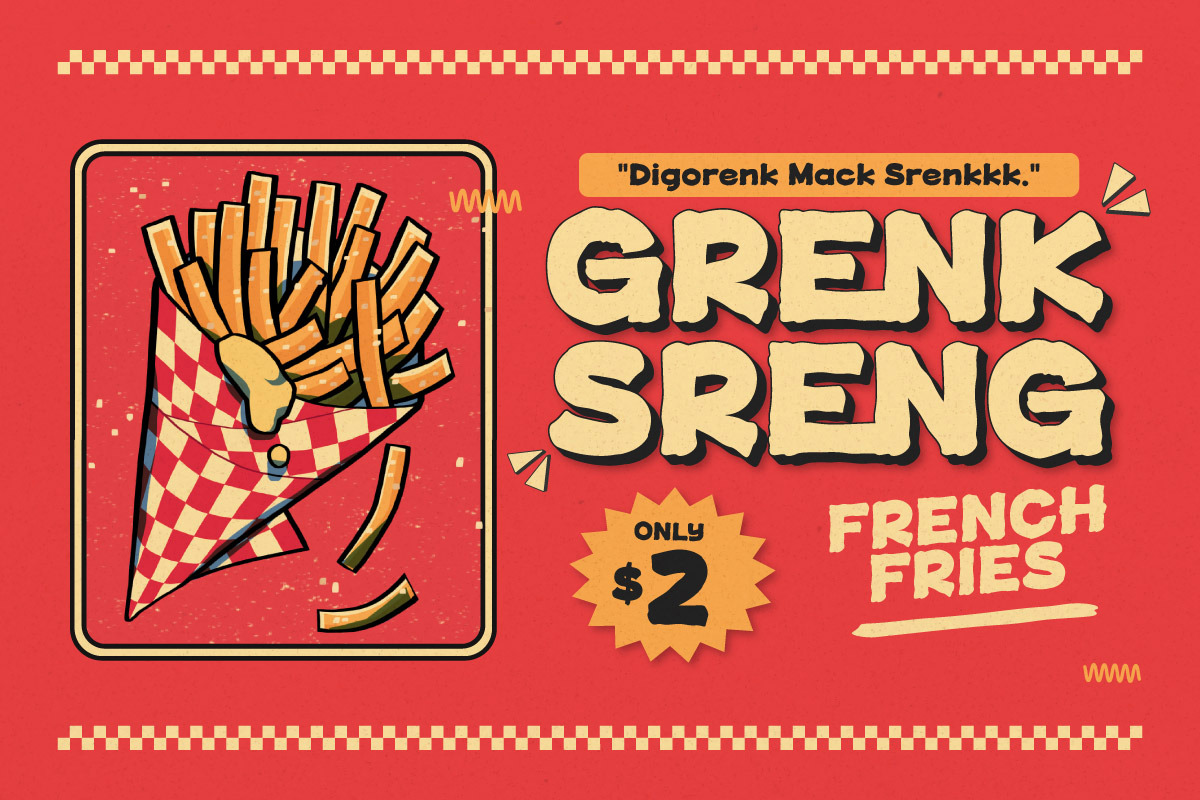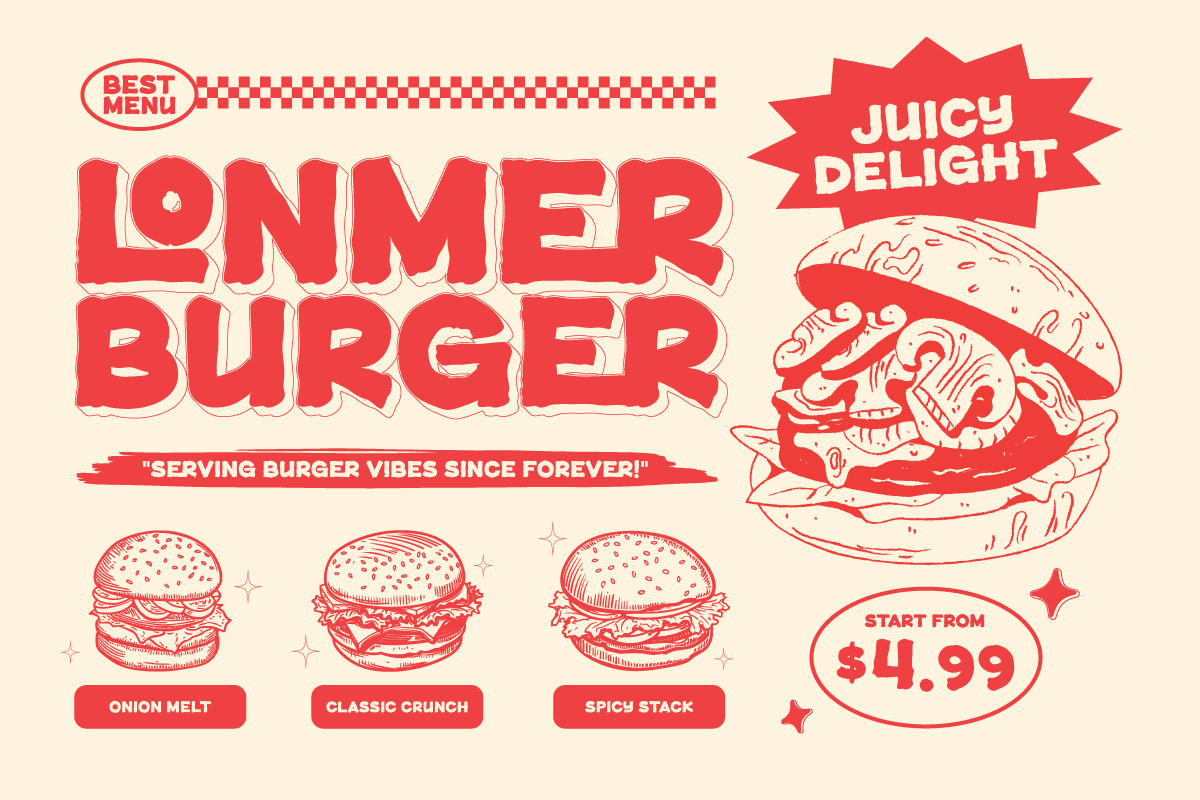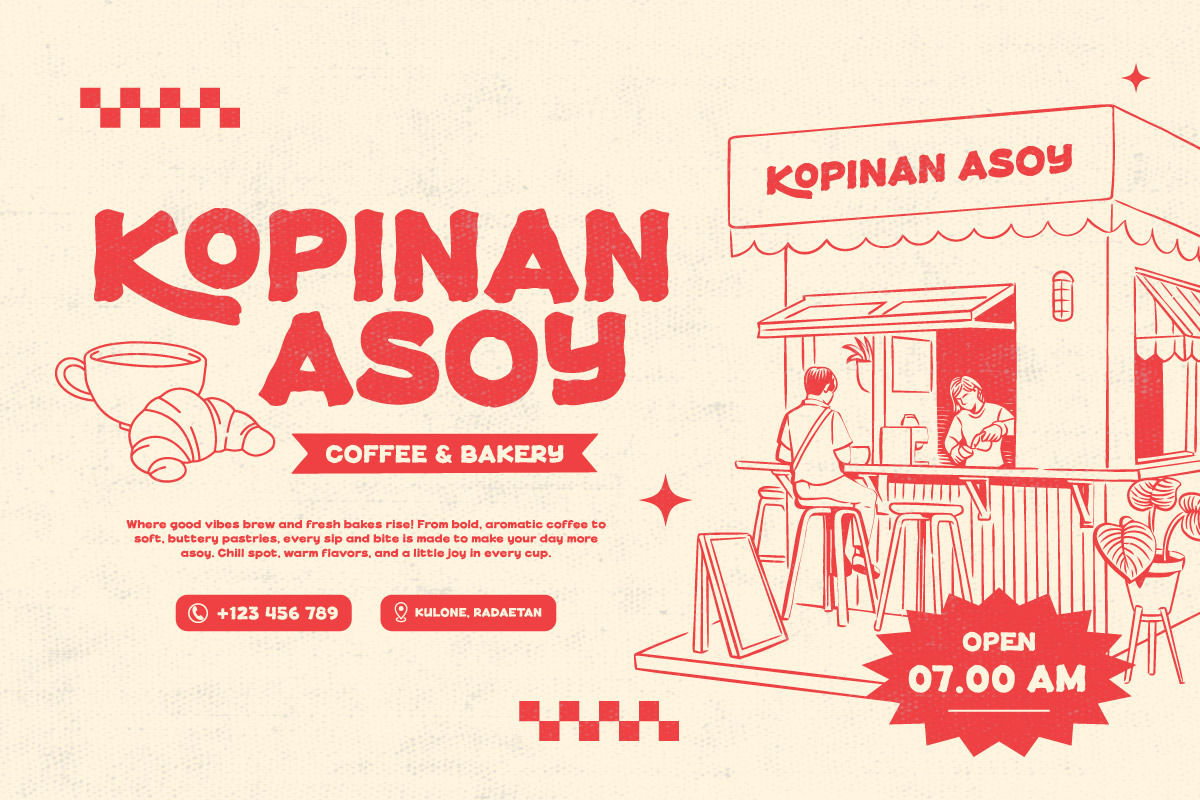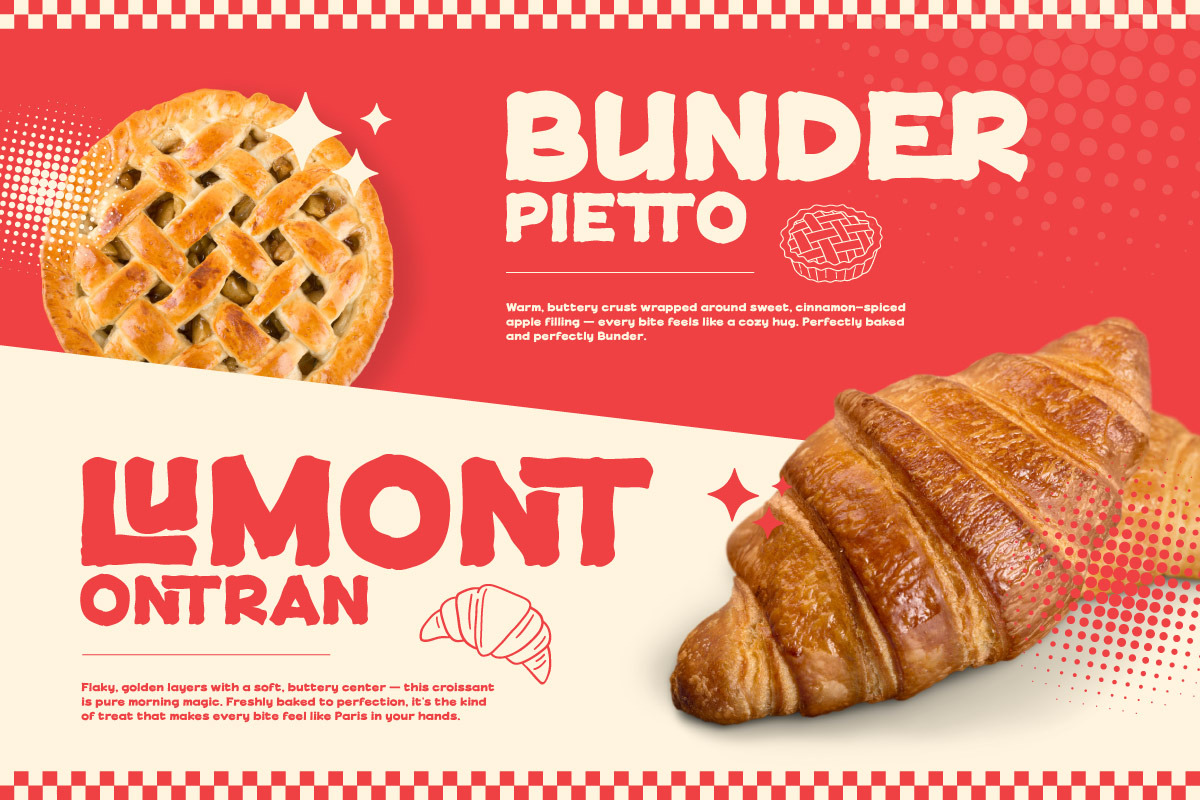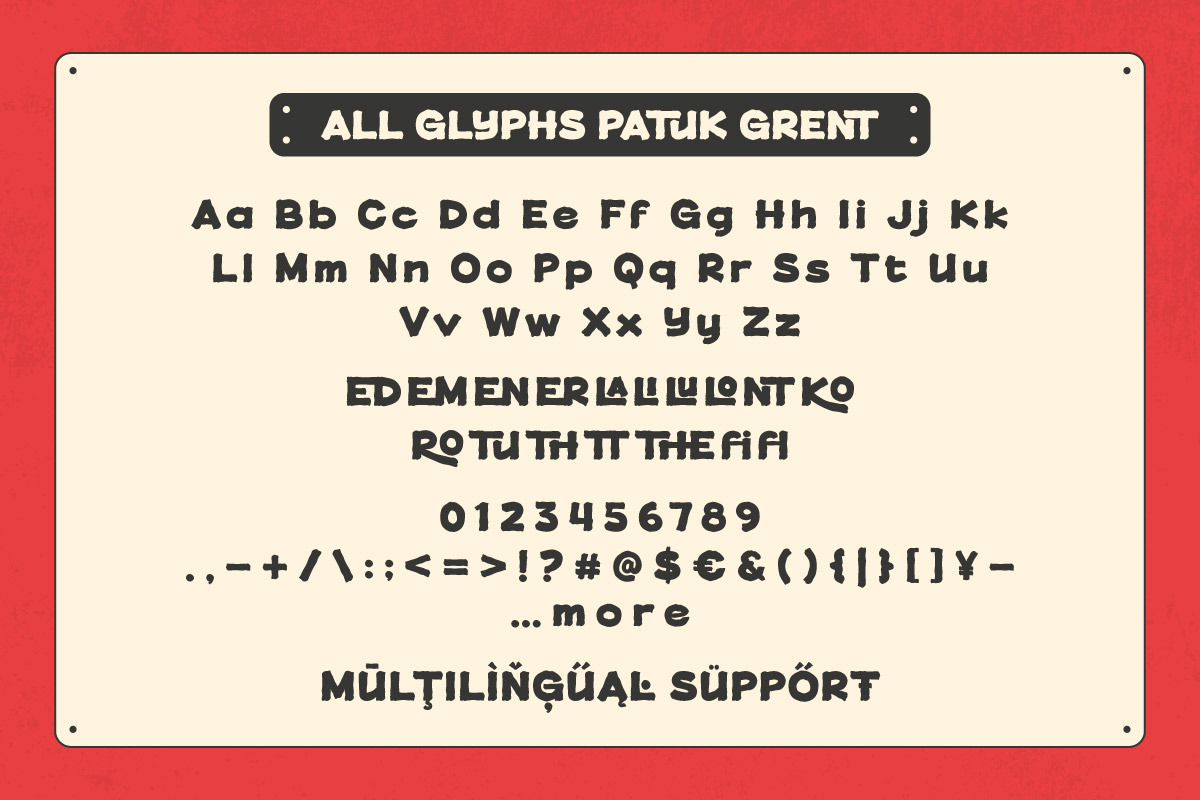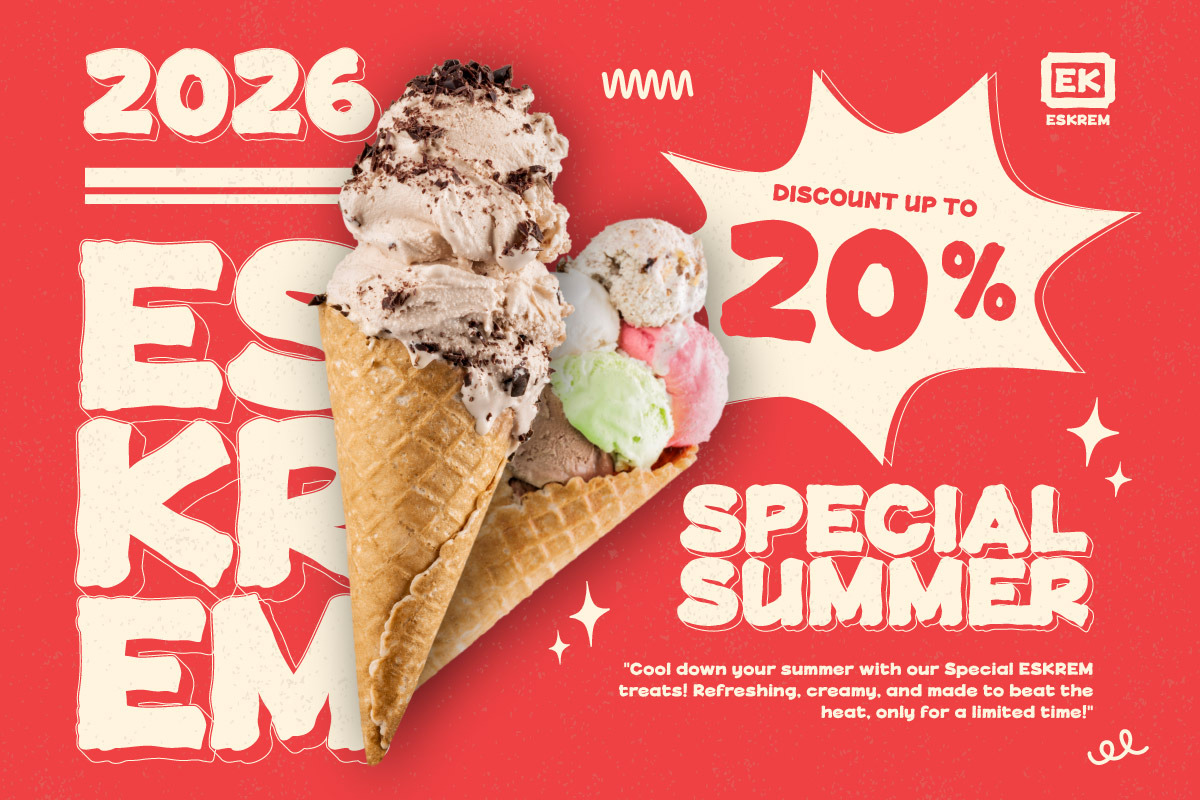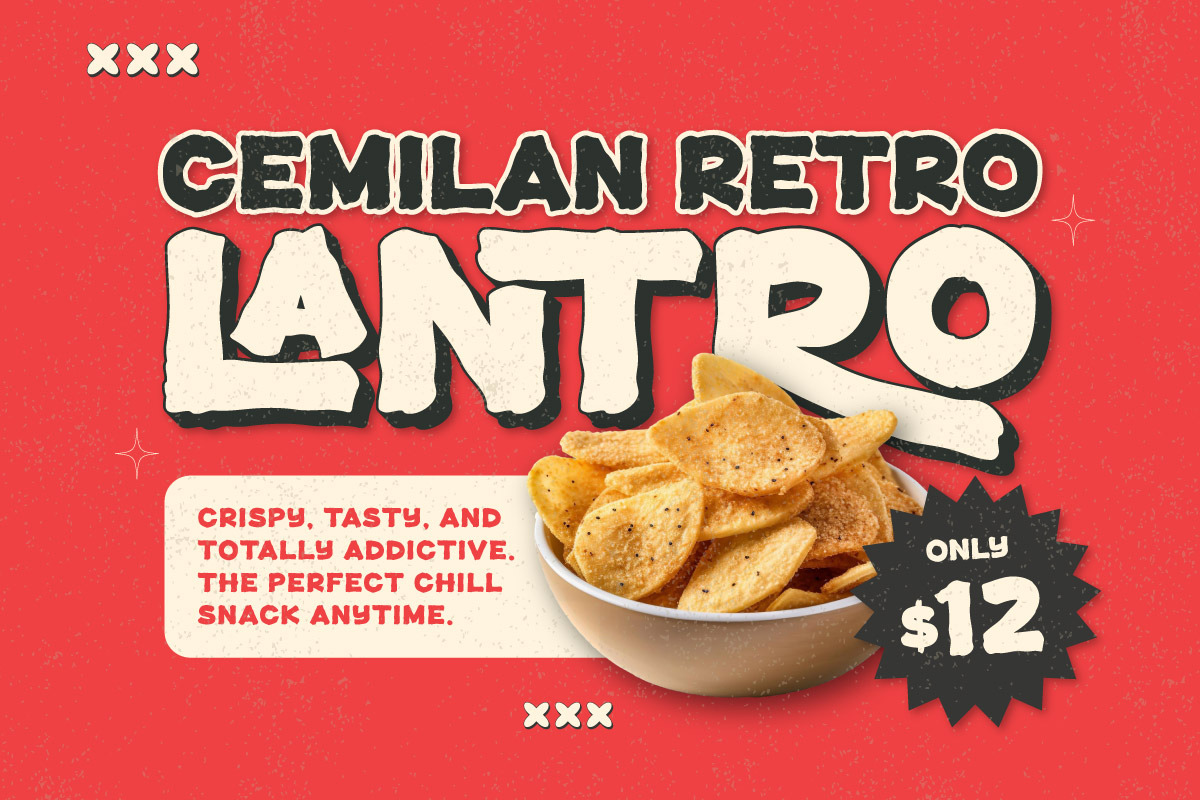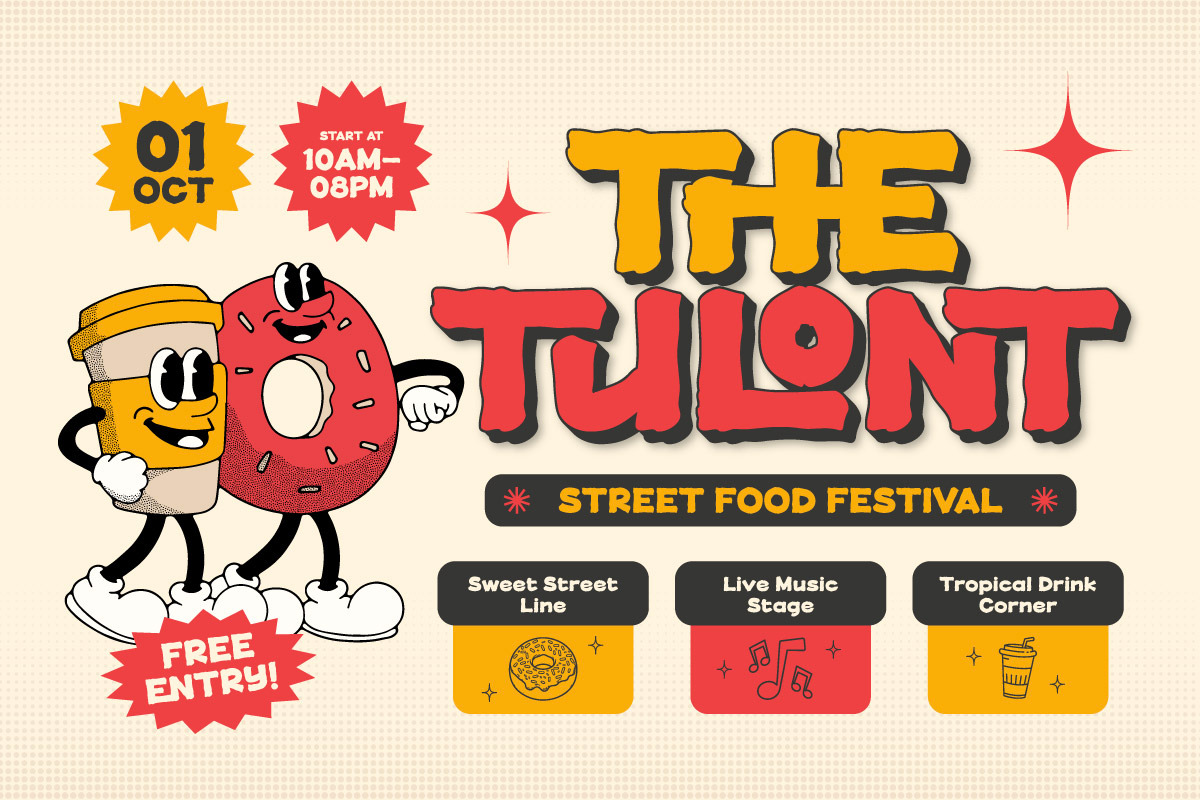
Patuk Grent - Sign Bold Display
Patuk Grent is a bold sign display font crafted to stand out with strength and retro charm. Featuring Regular and Extrude styles, it delivers impactful visual presence ideal for posters, branding, signage, vintage packaging, or any design that calls for bold, expressive typography.
The Extrude version adds a dynamic 3D effect, giving your headlines and logos extra depth and visual weight. With strong brush strokes and an authentic hand-painted feel, Patuk Grent brings personality and nostalgia to every letterform—perfect for grabbing attention without compromising readability.
Whether used in print or digital design, Patuk Grent is your go-to font for bold statements with vintage flair.